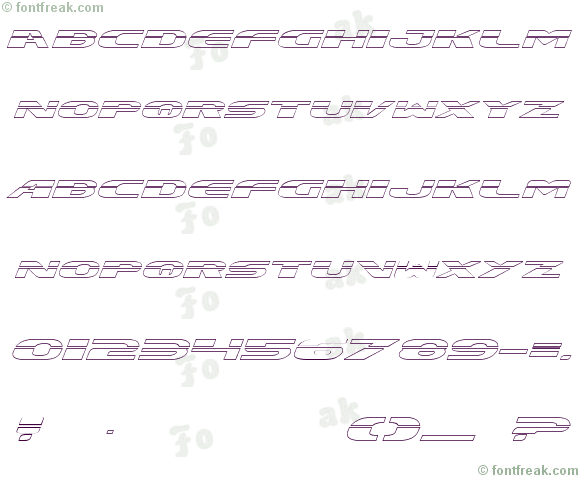
Excelerate by Iconian Fonts is a striking display typeface that captivates with its bold, dynamic character. This font features a unique outline design that gives it a modern and energetic feel, making it an excellent choice for projects requiring a strong visual impact. The stroke weight is consistent, offering a balanced look, while the left-aligned decorative elements create a sense of motion and speed, reflecting the name "Excelerate."
The font’s unique characteristics make it particularly suitable for a variety of creative applications. It shines in contexts such as movie posters, where its boldness can draw attention and evoke excitement. Additionally, Excelerate works well for sports branding, offering an energetic vibe that resonates with athletic themes. Restaurant menus can also benefit from its unique flair, providing an eye-catching element that enhances the dining experience. Moreover, it is an excellent choice for event flyers, especially for gatherings that aim to create a lively atmosphere.
The target audience for the Excelerate font includes graphic designers, small business owners, and content creators who seek to elevate their projects with a distinctive typeface. Its freeware license makes it accessible for those working on budgets while still wanting to make a visual statement.
What sets Excelerate apart is its perfect blend of modern aesthetics and versatility. Its ability to convey energy and excitement while remaining legible makes it a standout choice for various design needs. Whether you are creating promotional materials, branding, or any visual project, the Excelerate font free download is a valuable addition to your typography toolkit. Embrace the energetic spirit of this font and elevate your designs today.